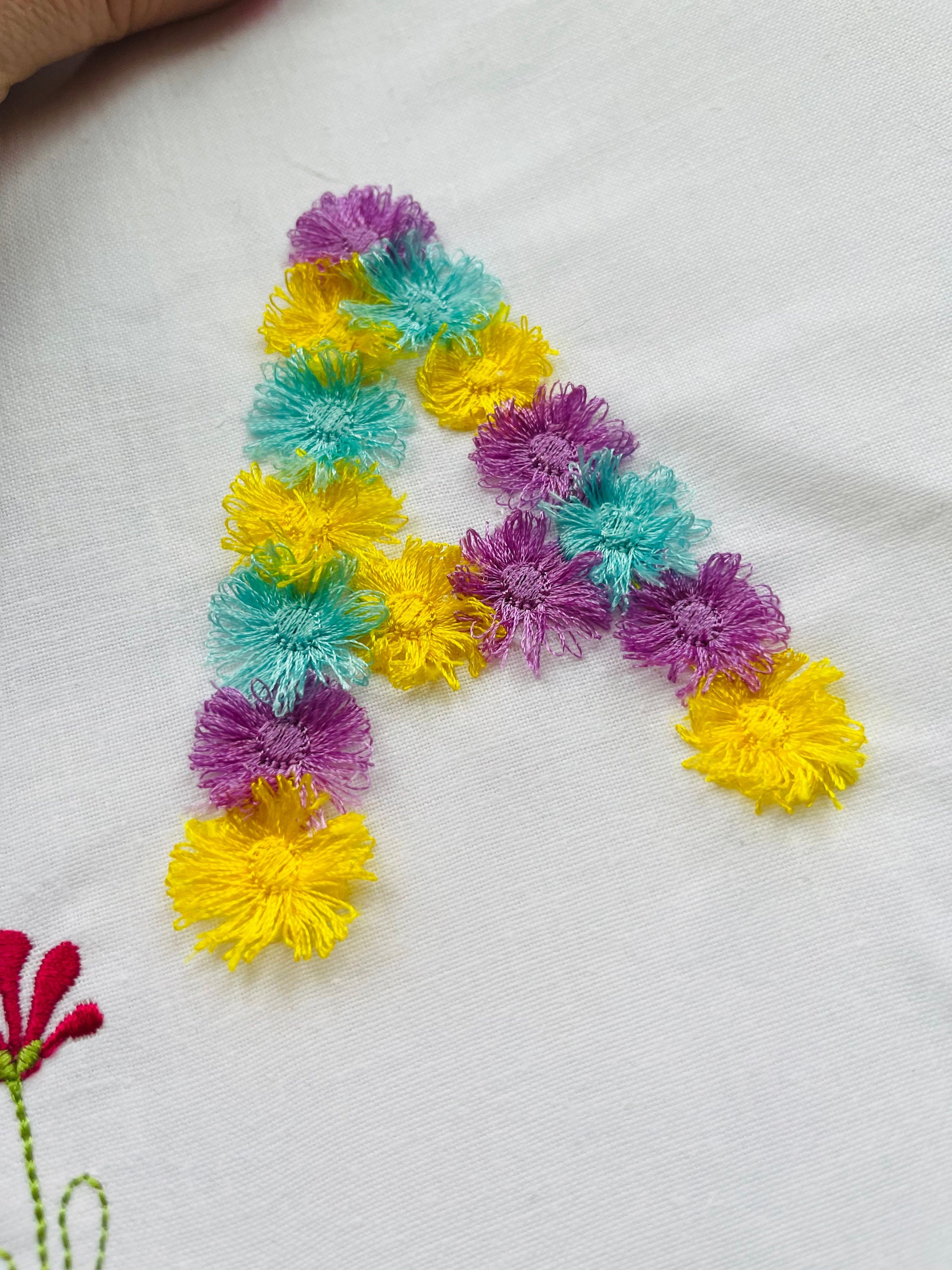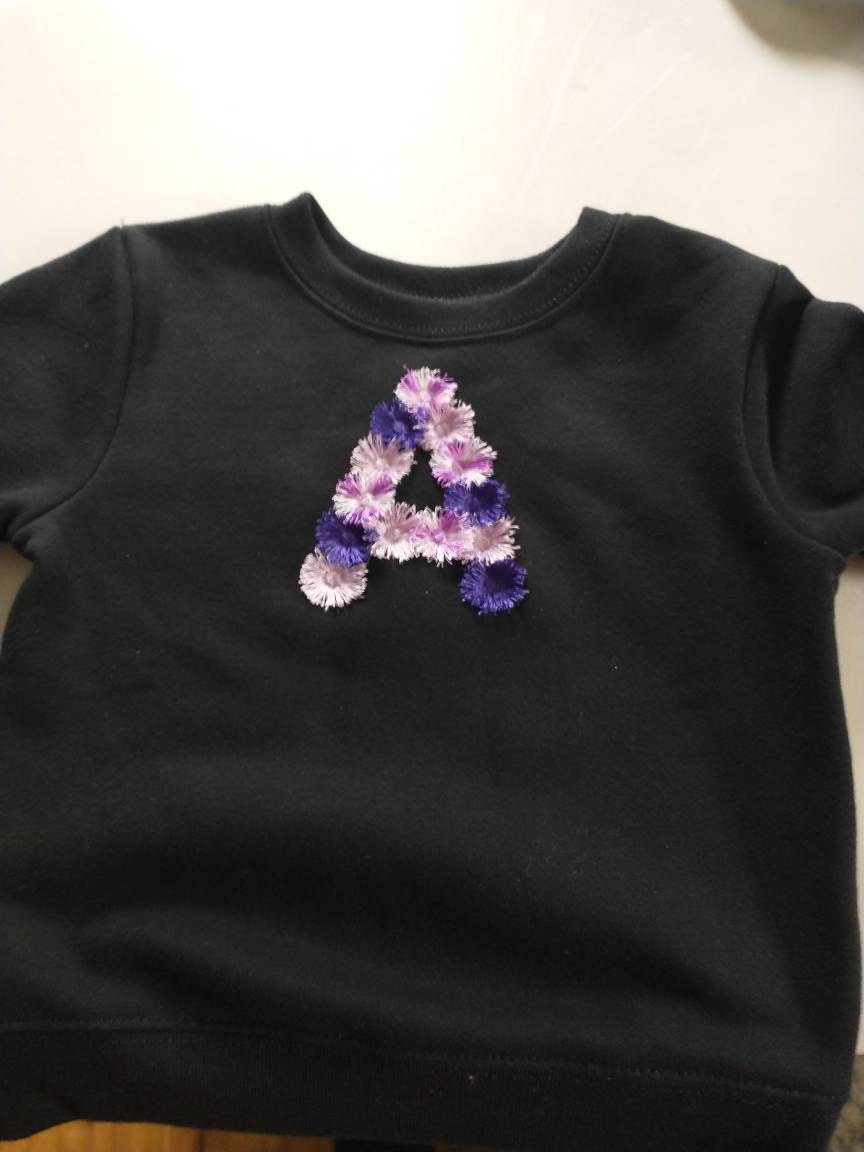
Circle Fringed FONT alphabet letters machine embroidery designs in assorted maxi sizes kids girly pretty fluffy letters, BX
NB! This is extra fluff fringed font.
You may fringe all letters. 100 % safe to tear and wash.
Entire alphabet A-Z